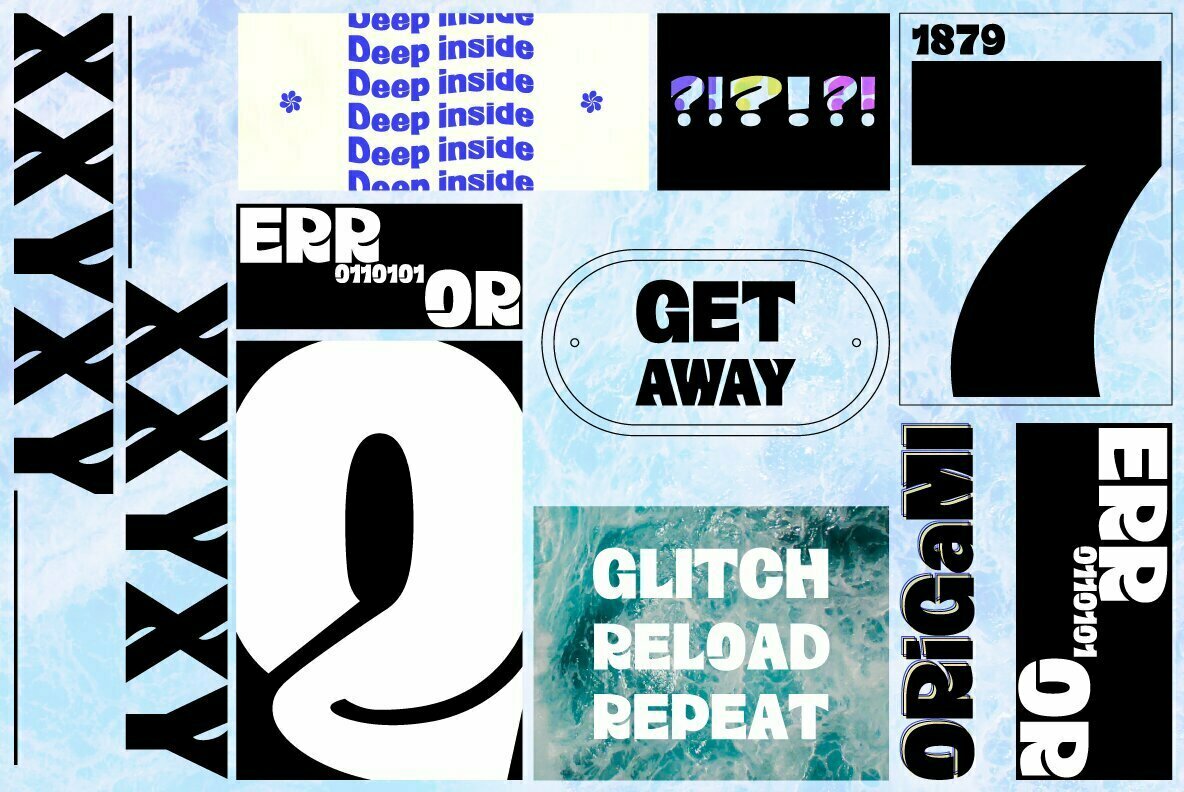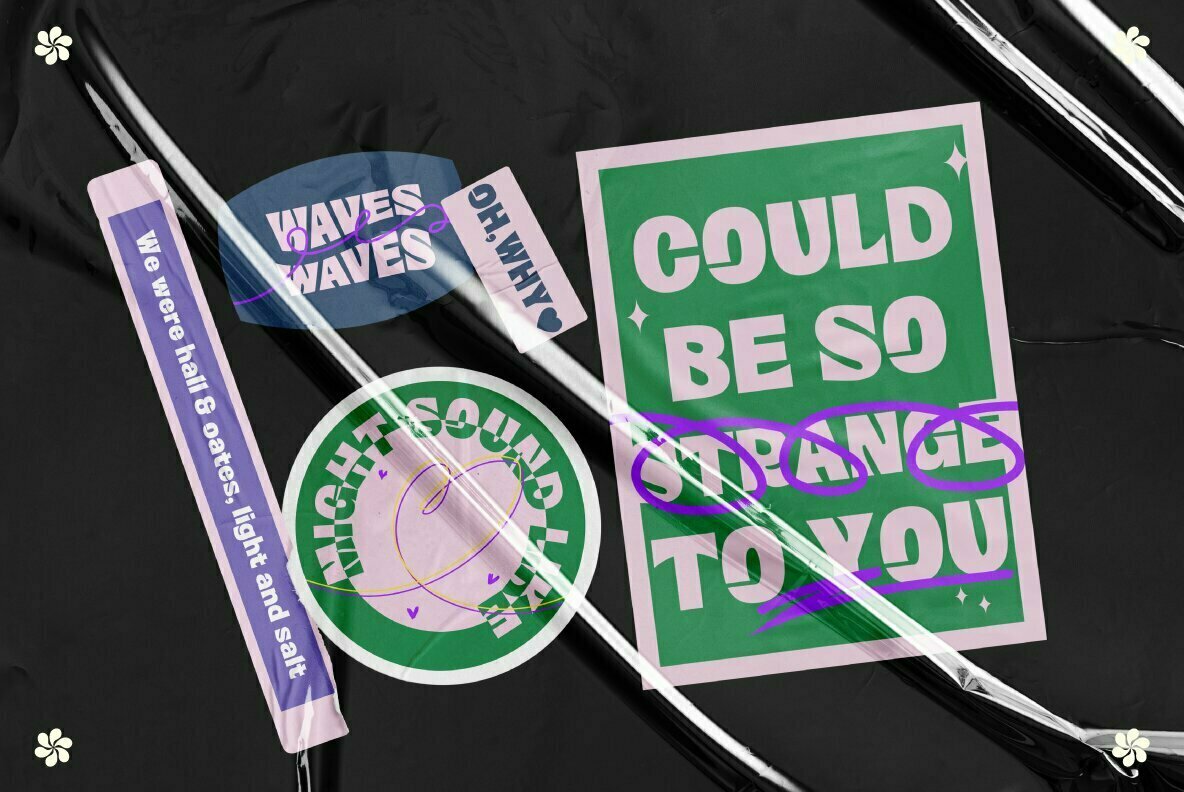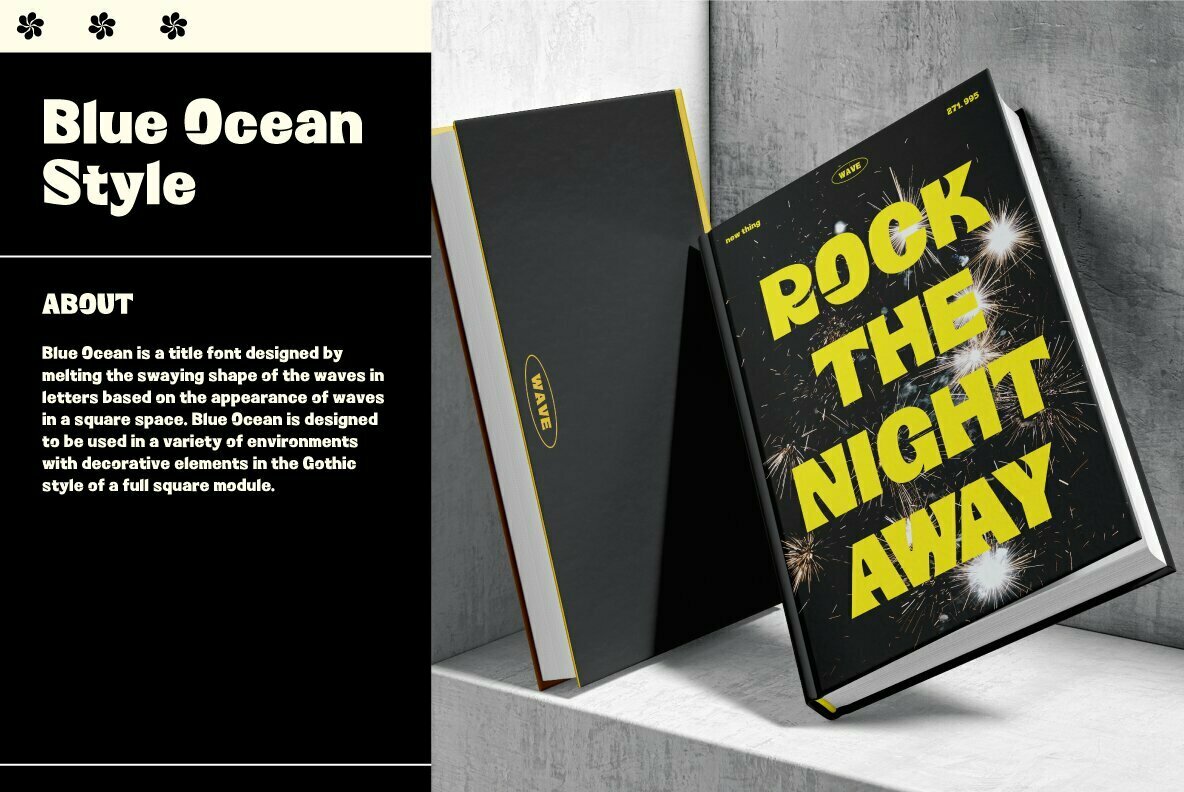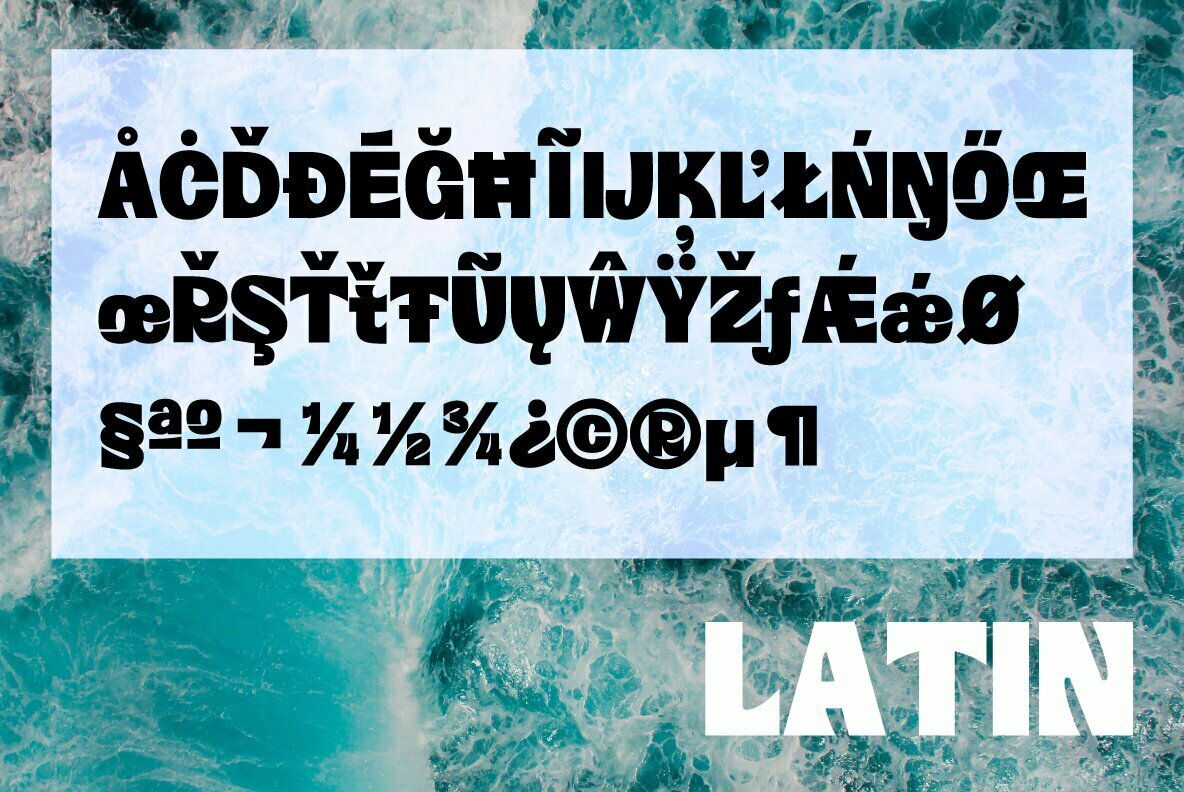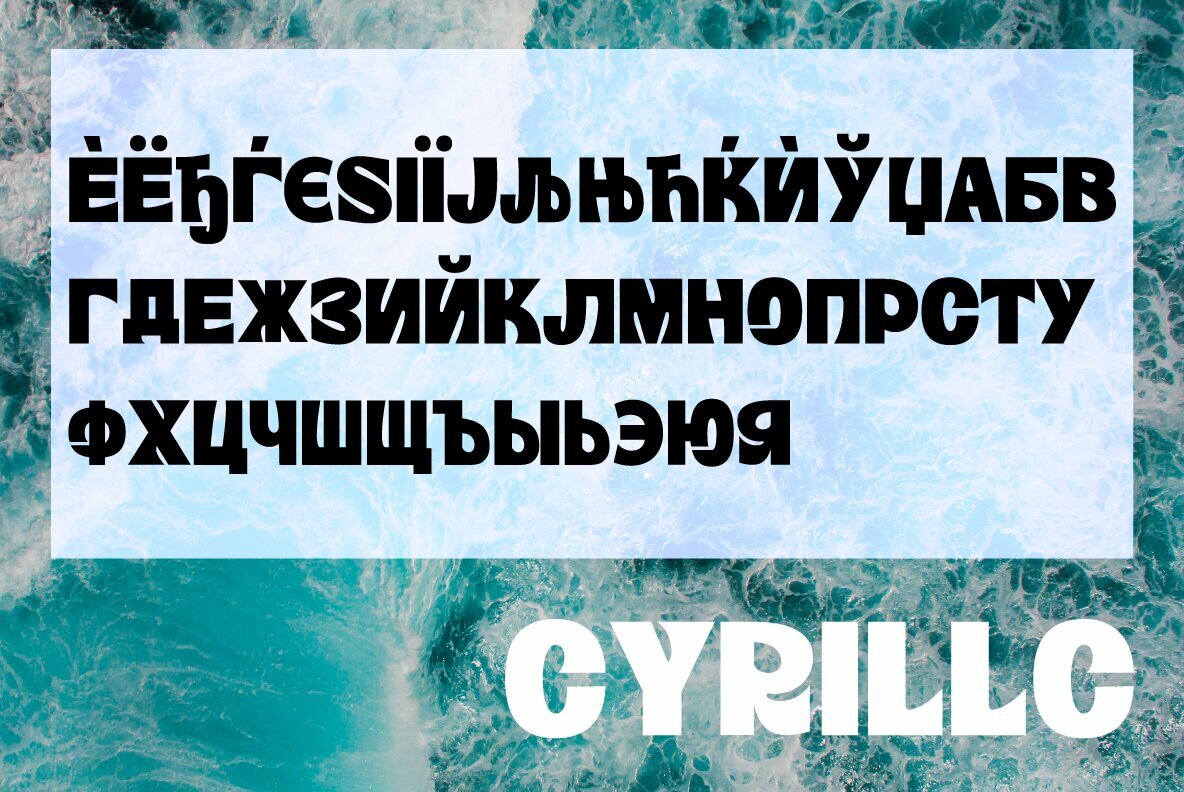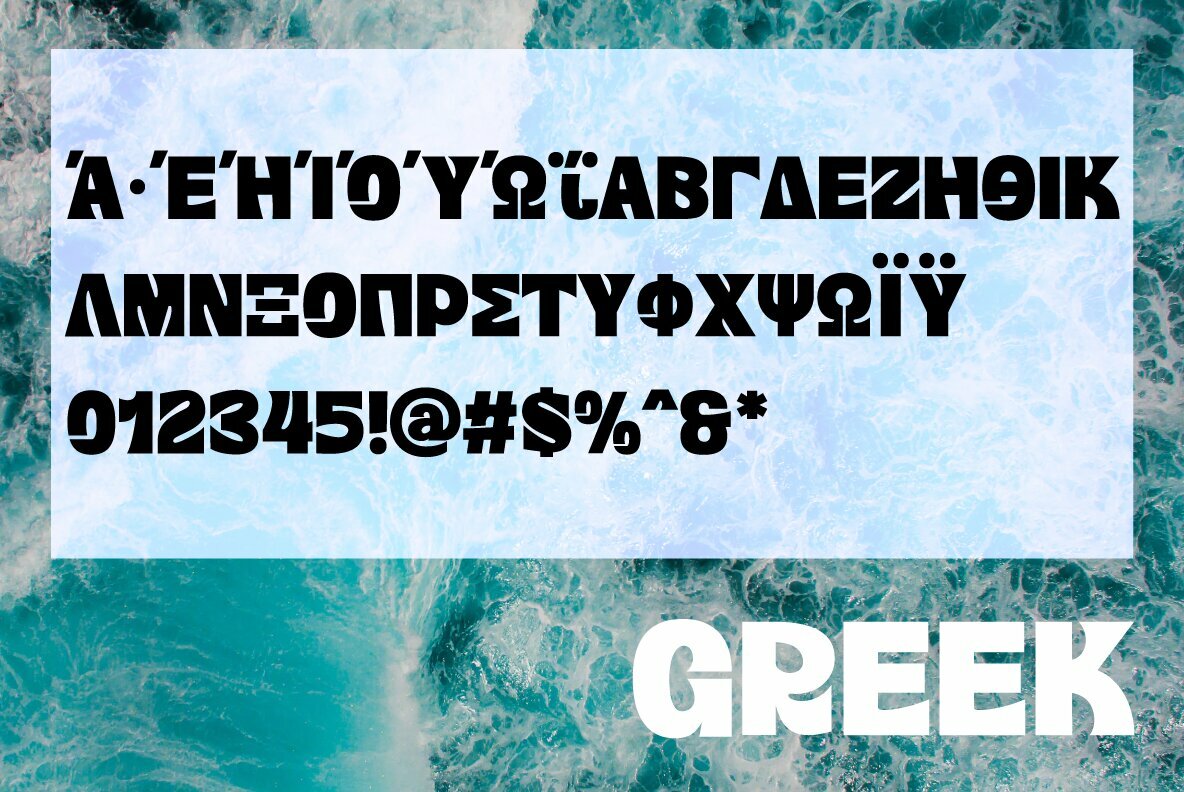
HU Blueocean 1
HU Blueocean is a headline typeface created by imagining waves in a square glass tube.
It is designed to be used in various environments by adding decorative elements, the swaying form of waves, to the Gothic style of a full square module.
There is 1 weight of HU Blueocean: Black